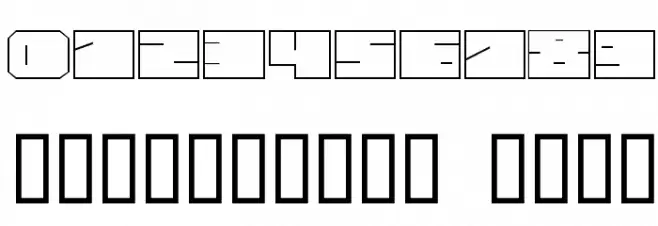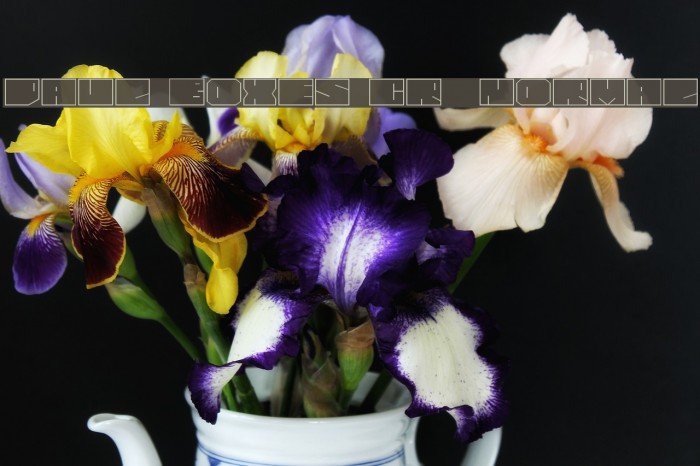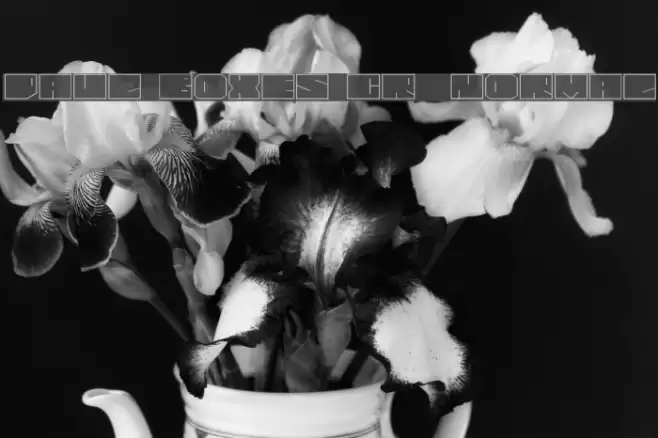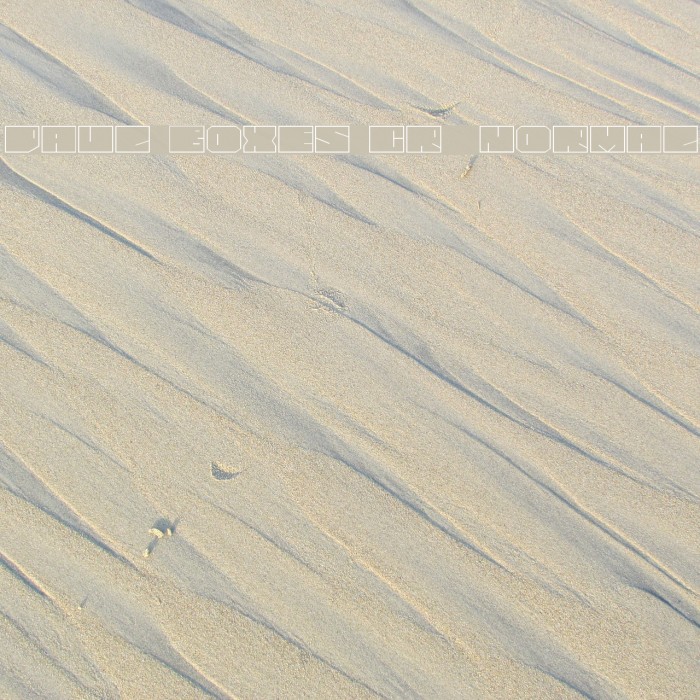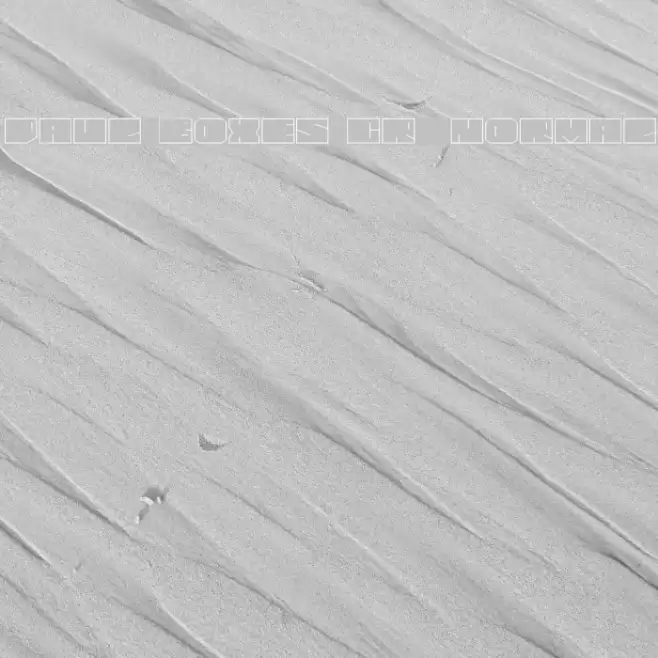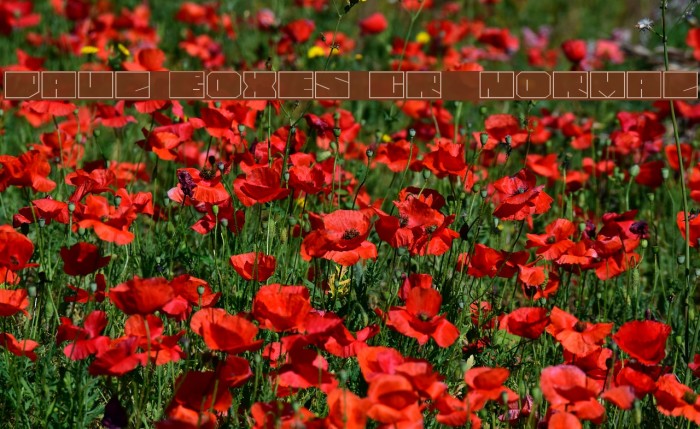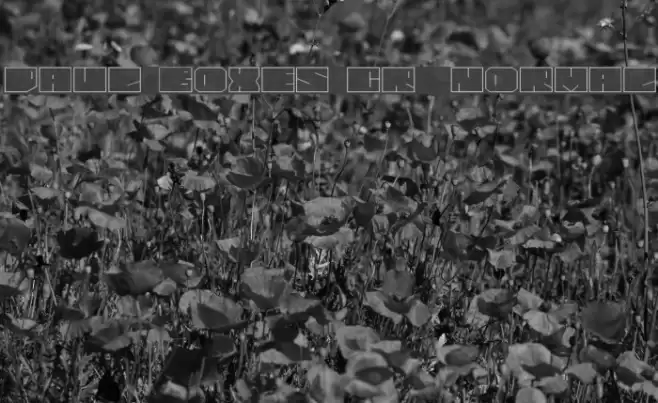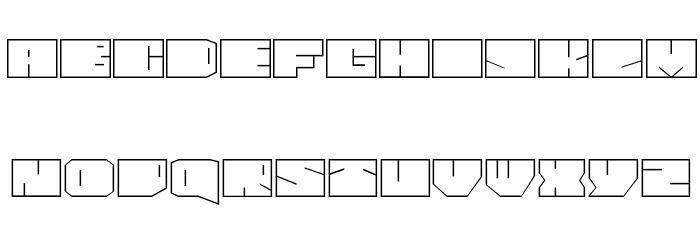
Paul BOXES Cyr Normal Font
Paul BOXES Cyr Normal Description
This font features a unique, boxy design with each character enclosed within a square or rectangular outline. The geometric structure gives it a modern and futuristic appearance, making it stand out with its bold and angular lines. The uppercase letters are consistent in height and width, creating a uniform look. The numbers follow the same boxed style, ensuring cohesion across all characters. The special characters are also designed within the same framework, maintaining the overall aesthetic. This font's distinct style is ideal for projects that require a strong visual impact.